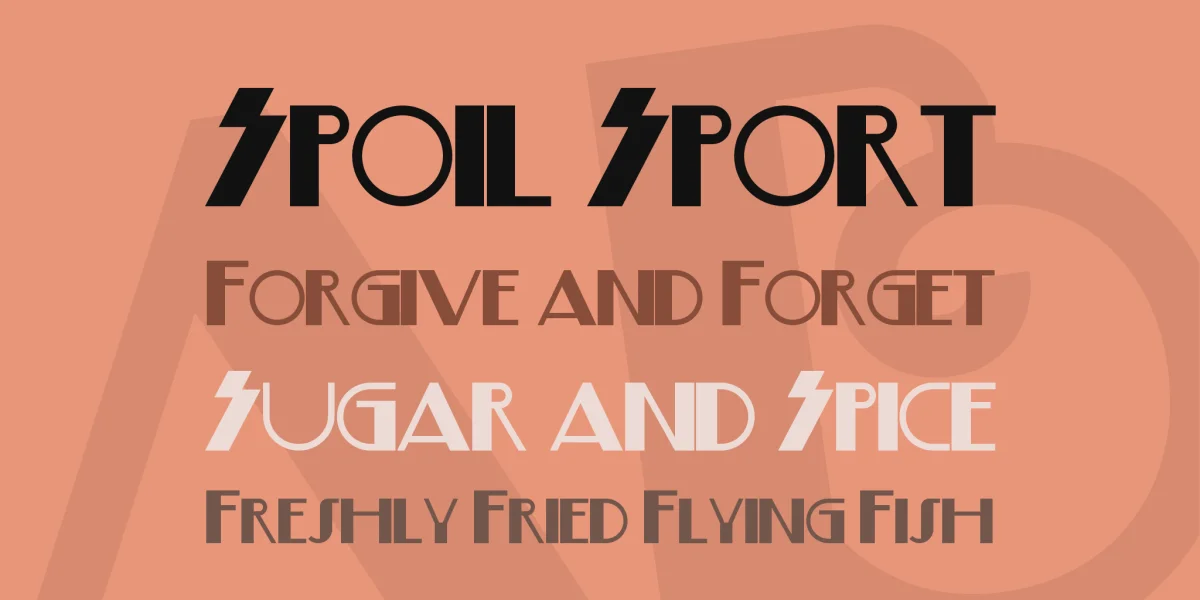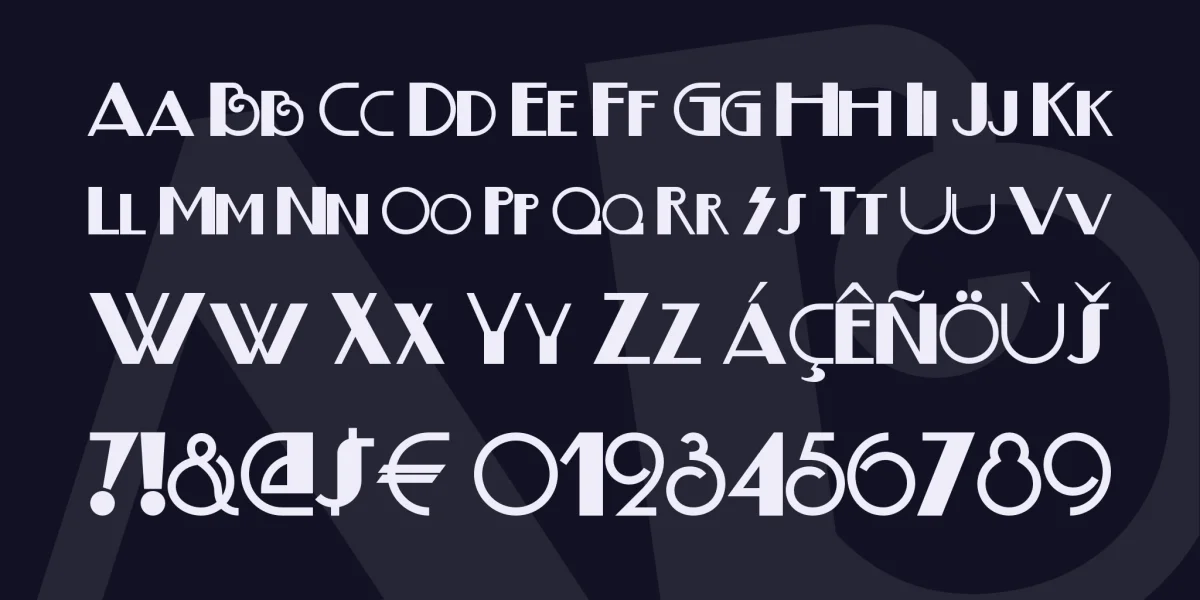
The inspiration for this font came from a poster for an Austrian trade show from the 1920s, credited simply to Wasserman. The "lightning bolt" uppercase S is an interesting study in contrast; however, for those unimpressed, a more sinuous lowercase s is included.